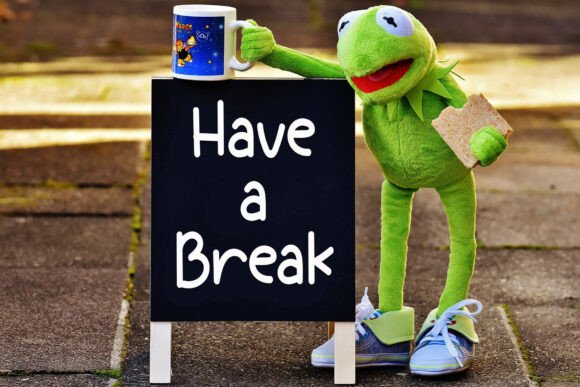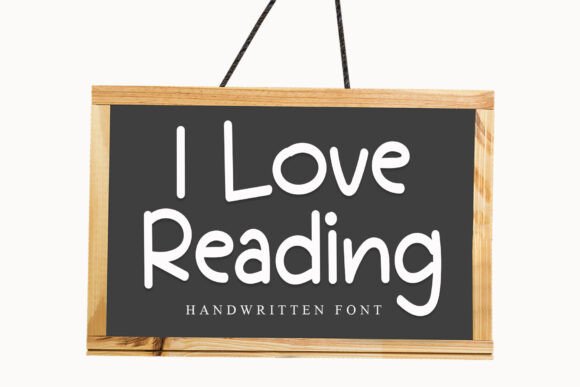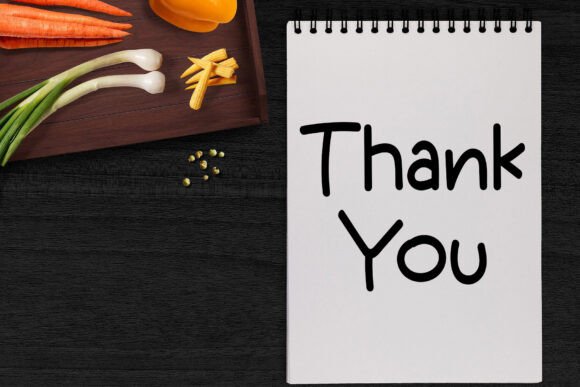
Introduction to Manda Font
As you sit at your desk, staring at a blank canvas, the pressure to create something truly unique can be overwhelming. But what if I told you that there’s a secret to unlocking your full creative potential? For designers, finding the perfect font can be the game-changer that takes your project from ordinary to extraordinary. Enter the Manda Font, a stunning and elegant typeface that’s sure to elevate any design to new heights.
With its varied baseline and natural, hand-made touch, the Manda Font is the perfect addition to any creative project. Whether you’re designing wedding invitations, business cards, or billboards, this font is sure to add a touch of sophistication and class. And the best part? The Manda Font is PUA encoded, making it easy to access all of its glyphs and swashes for a truly seamless design experience.
Key Features of Manda Font
- Unique characteristics and styling make it a standout choice for creative projects
Honest Review: Manda Font
As a designer, I’m always on the lookout for high-quality fonts that can elevate my creative projects. The Manda Font is one such find that I’d like to share with you.
- Its elegant and modern design makes it perfect for a wide range of creative projects, from branding to digital art.
Overall, the Manda Font is a solid choice for designers looking for a free, high-quality font to add to their toolkit.
- The font may not be suitable for very small text sizes, as the details can become lost.
- The font family is relatively small, which may limit its versatility in certain design contexts.
Despite these limitations, I’m happy to have the Manda Font in my design arsenal, and I’m confident it will serve me well in many creative projects to come.
Manda Font is a popular choice for designers and creatives due to its high-quality design and transparent background. Some common use cases for Manda Font include:
- Designing logos and branding materials
- Creating presentations and reports
- Developing websites and web applications
- Designing print materials such as business cards and brochures
Comparison to Manda Font: While Great Vibes Font is more elegant, Manda Font has a more playful, cursive feel. Great Vibes Font is better suited for formal events or premium branding.